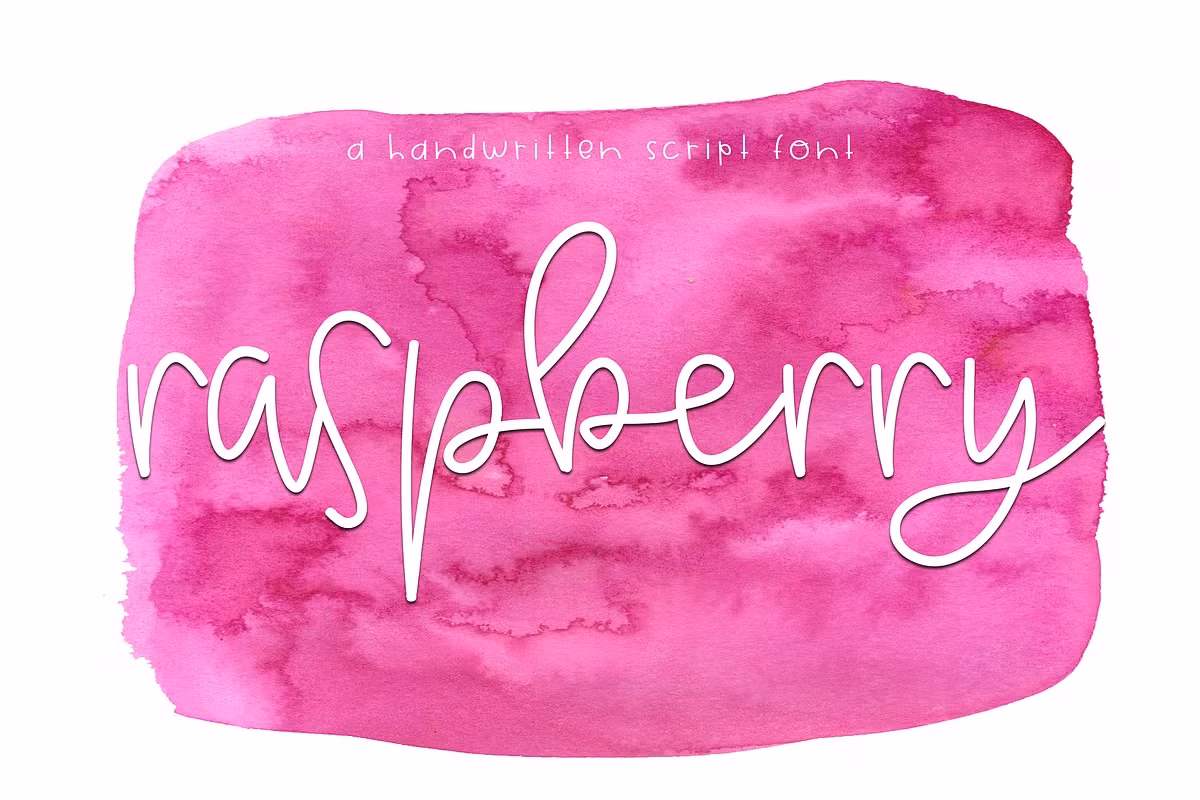
Raspberry - Handwritten Script Font Free Download
The Raspberry - Handwritten Script Font Free Download is a beautiful and elegant typeface that adds a personal, handwritten touch to your designs. With its smooth curves and flowing strokes, this script font is perfect for creating stylish logos, invitations, branding, and more. Whether you're designing for weddings, events, or creative projects, Raspberry brings a unique, artistic flair to your work.
Raspberry - Handwritten Script Font Free Download is ideal for designers looking to add a refined, creative touch to their typography. Perfect for projects requiring a casual, artistic, or elegant feel, this font will elevate your designs with its unique handwritten style. Download it today and infuse your work with the charm and beauty of Raspberry!